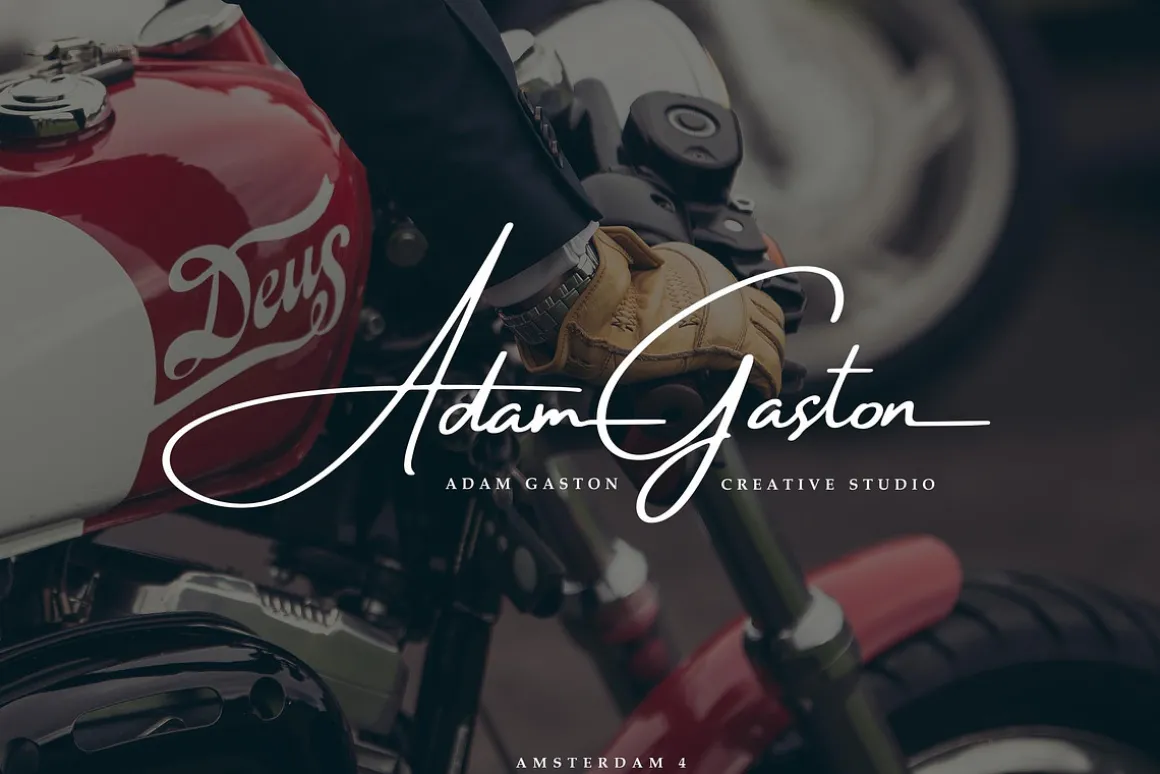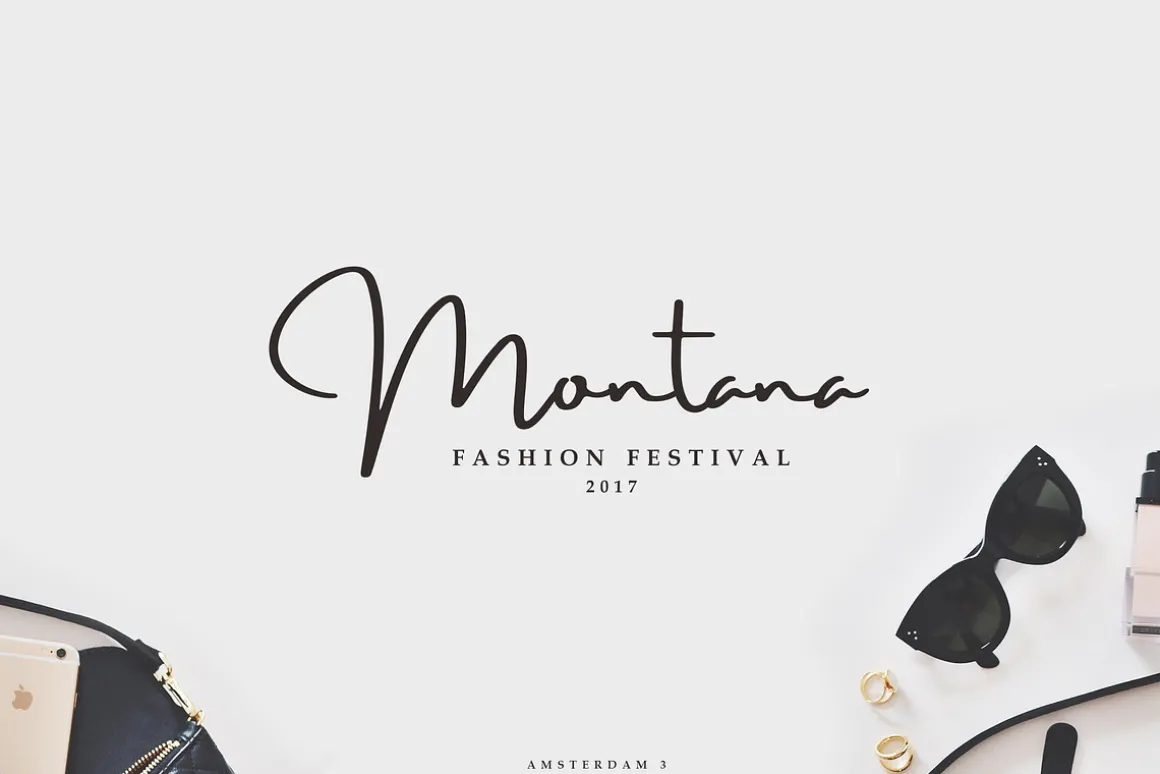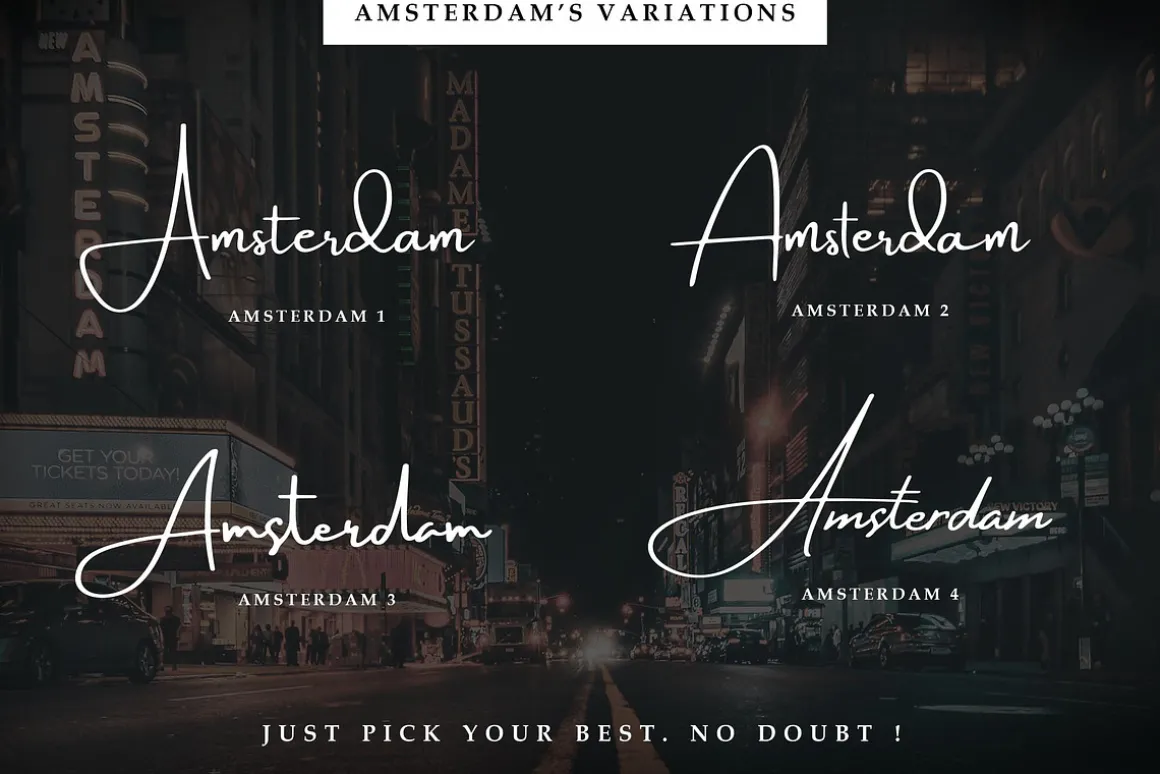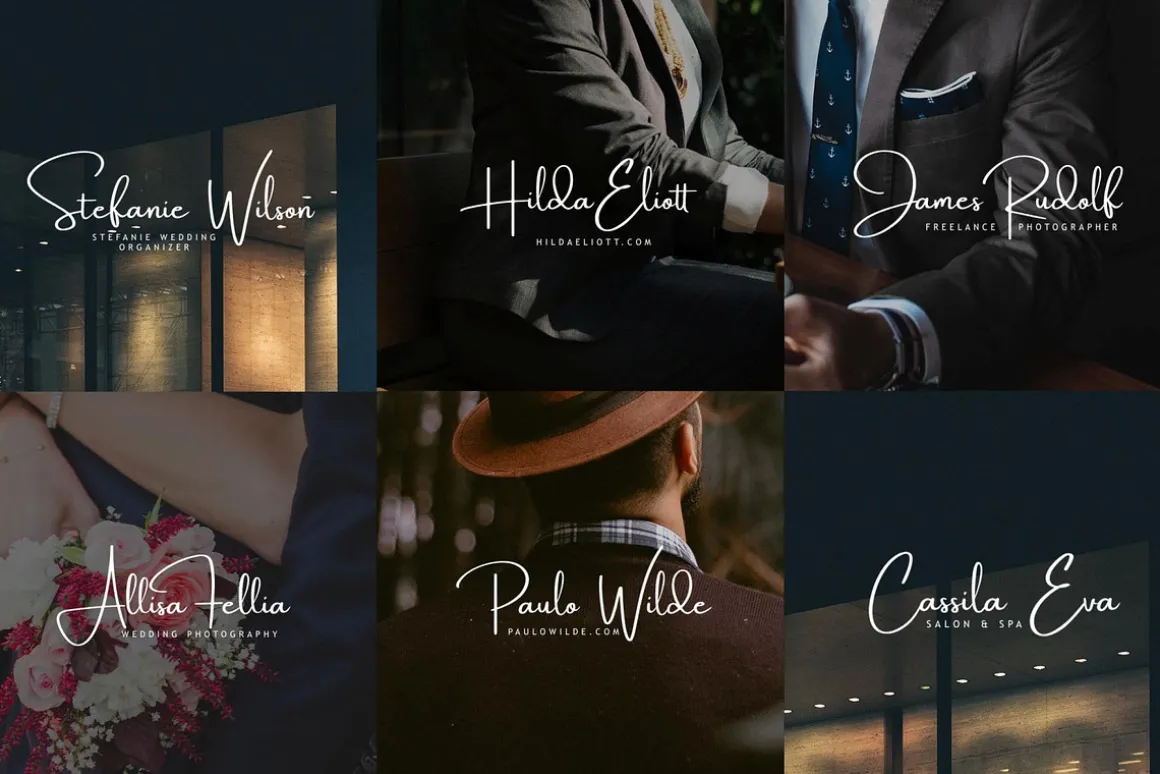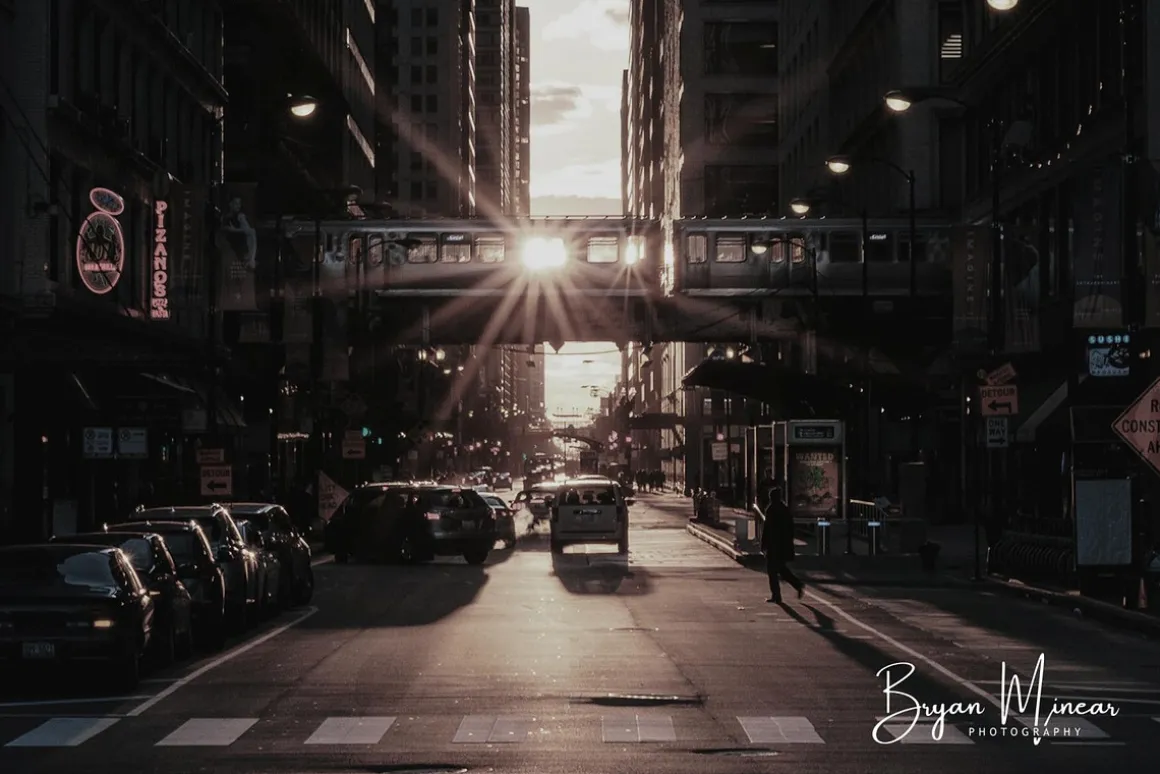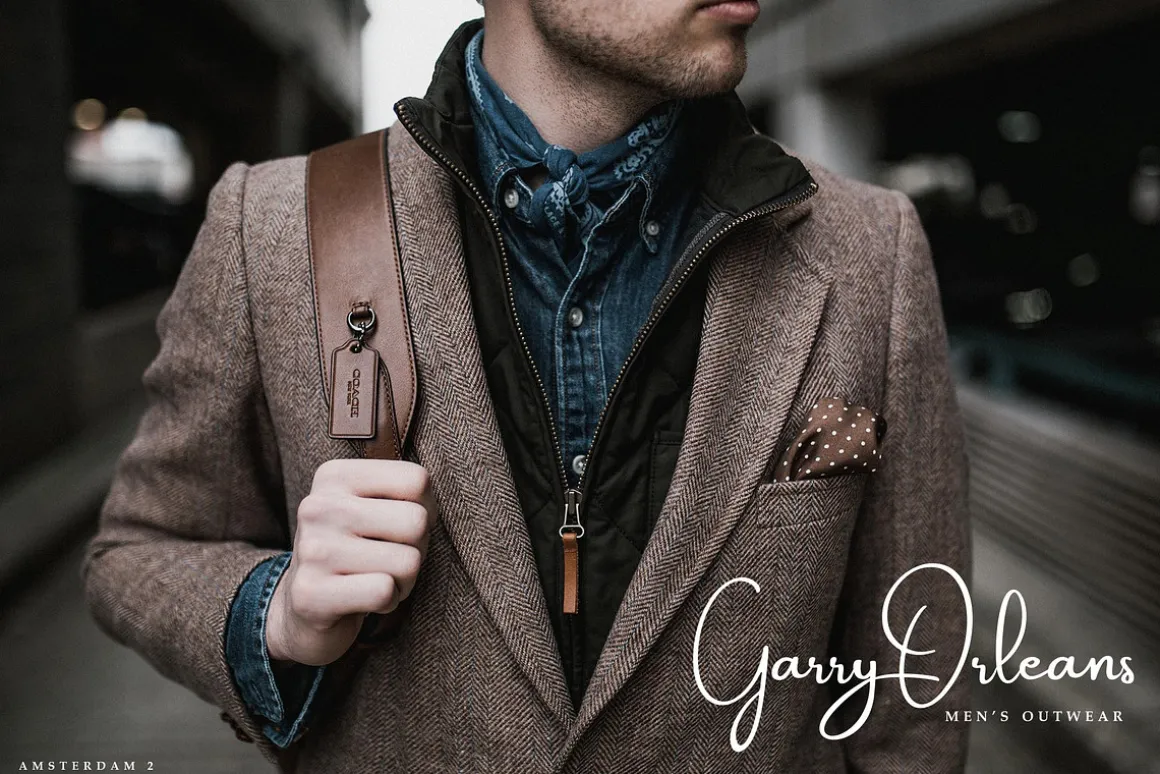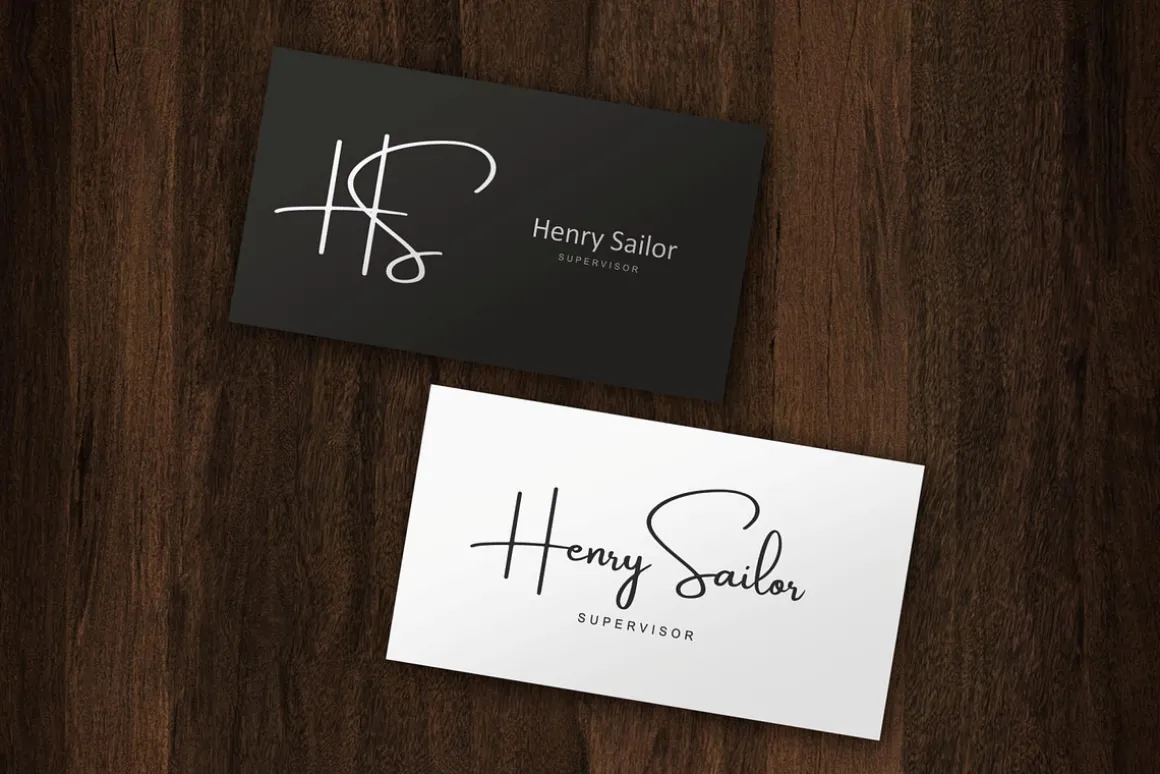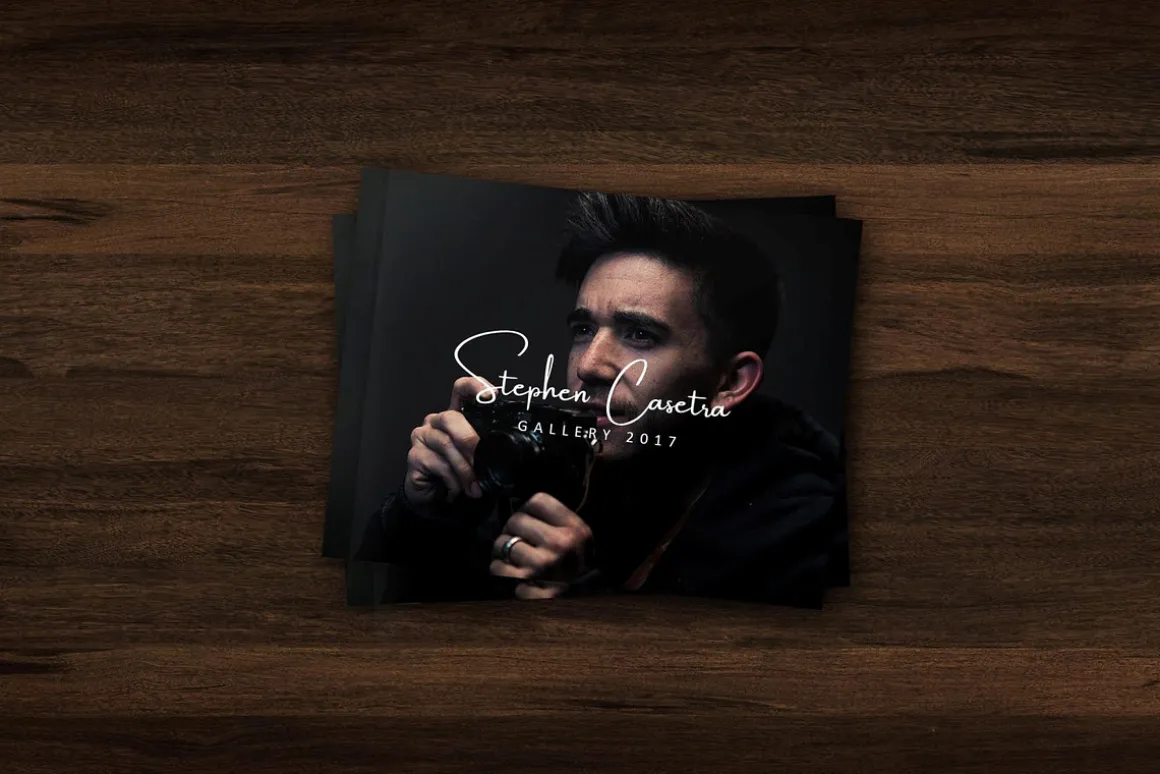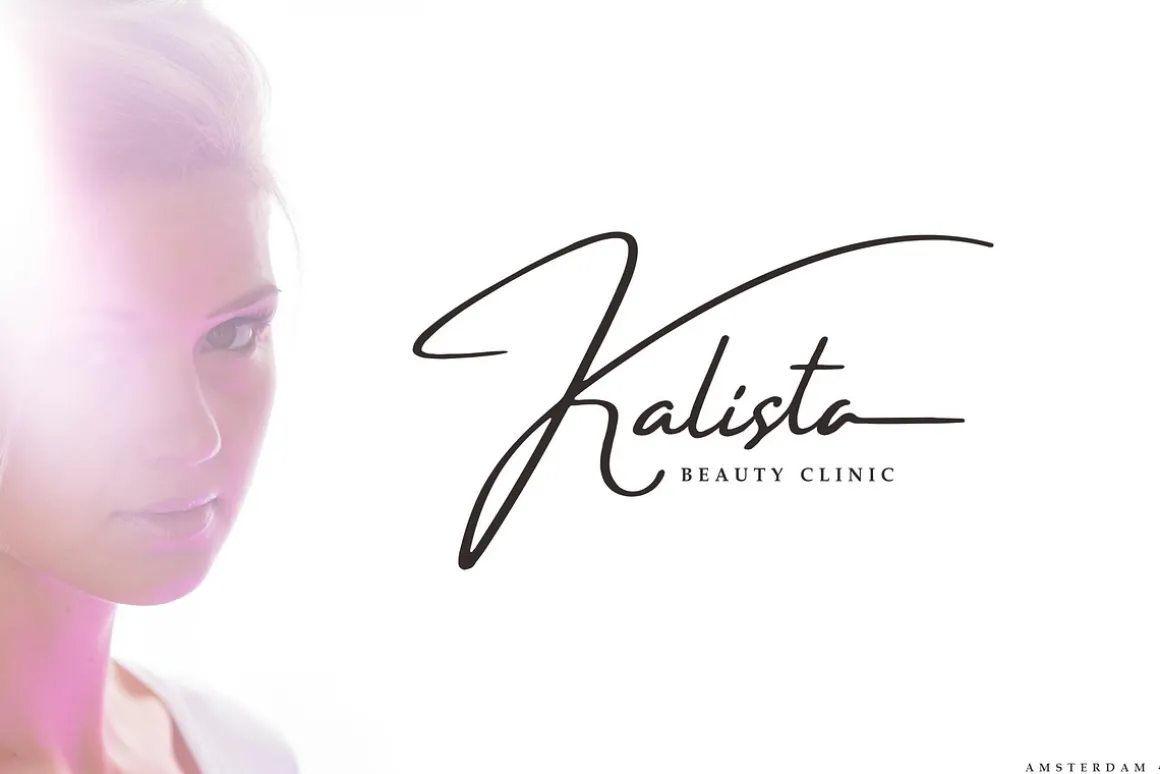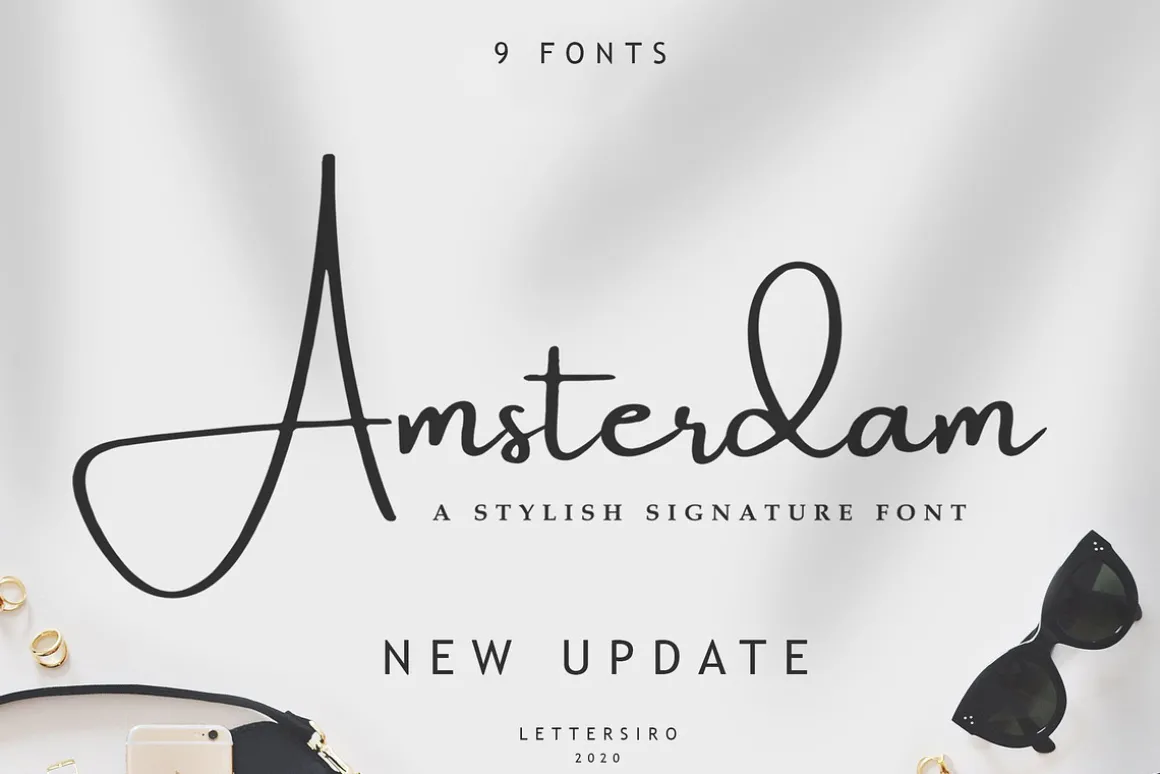
Amsterdam • 9 Elegant Fonts
According to our followers request to make a signature font again , we made this font.The Amsterdam font is a simple and classy font, comes with 8 Elegant Variations, opentype features such as stylistic alternates,initial and final form, and ligatures. We keep this font looks elegant, classy, readable, stylish, catchy and easy to use.
The Amsterdam Font is the great choice for watermark on photography, signature or signature logo design, quotes, album cover, business card, and many other design project.From business cards to photo watermarks, The Amsterdam is here to elevate your work to the highest level
Amsterdam Font is The winner of the Best Judge Choice in 2017 envato element contest
The Amsterdam variations will make you smile and happy. Just pick the variation you like best. NO DOUBT ! . If those variations did not touch your heart, we will add more variations in the future update 🙂
- Multilingual Support : AÀÁÂÃÄÅCÇDÐEÈÉÊËIÌÍÎÏNÑOØÒÓÔÕÖUÙÜÚÛWYÝŸỲŸÆŒßÞþ